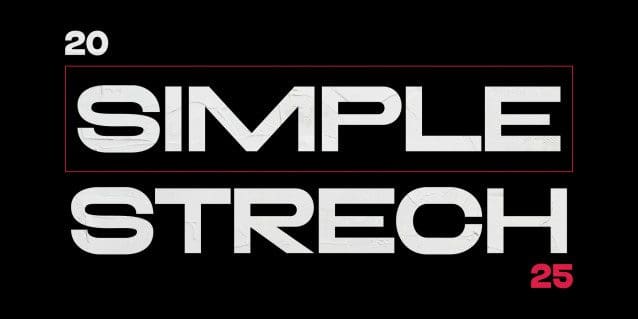
Redtrap Stretch Font
Redtrap Stretch Font, our bold, expanded sans serif font, designed to make your logo stand out with confidence and style. Its clean lines and expansive character exude strength and modernity, making it the perfect choice for impactful branding. With its bold presence and versatile appeal, this font ensures your logo leaves a lasting impression on any platform.